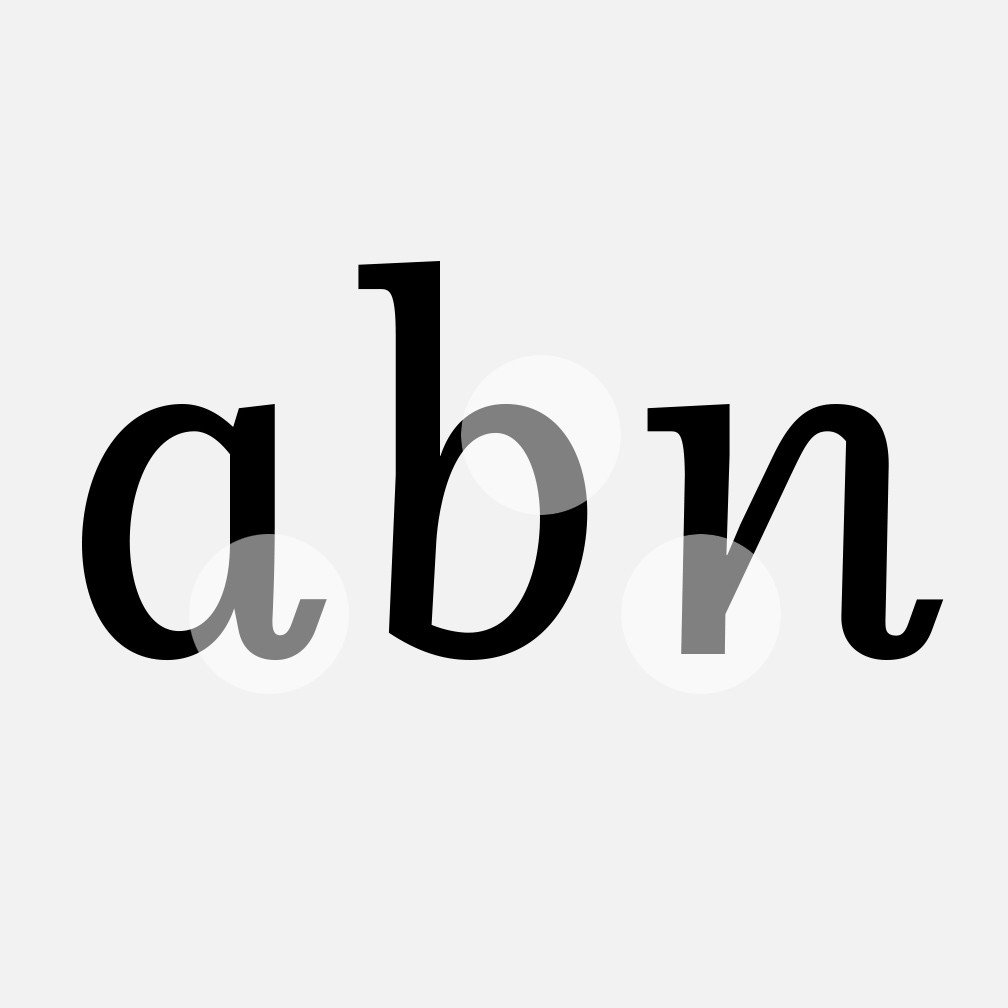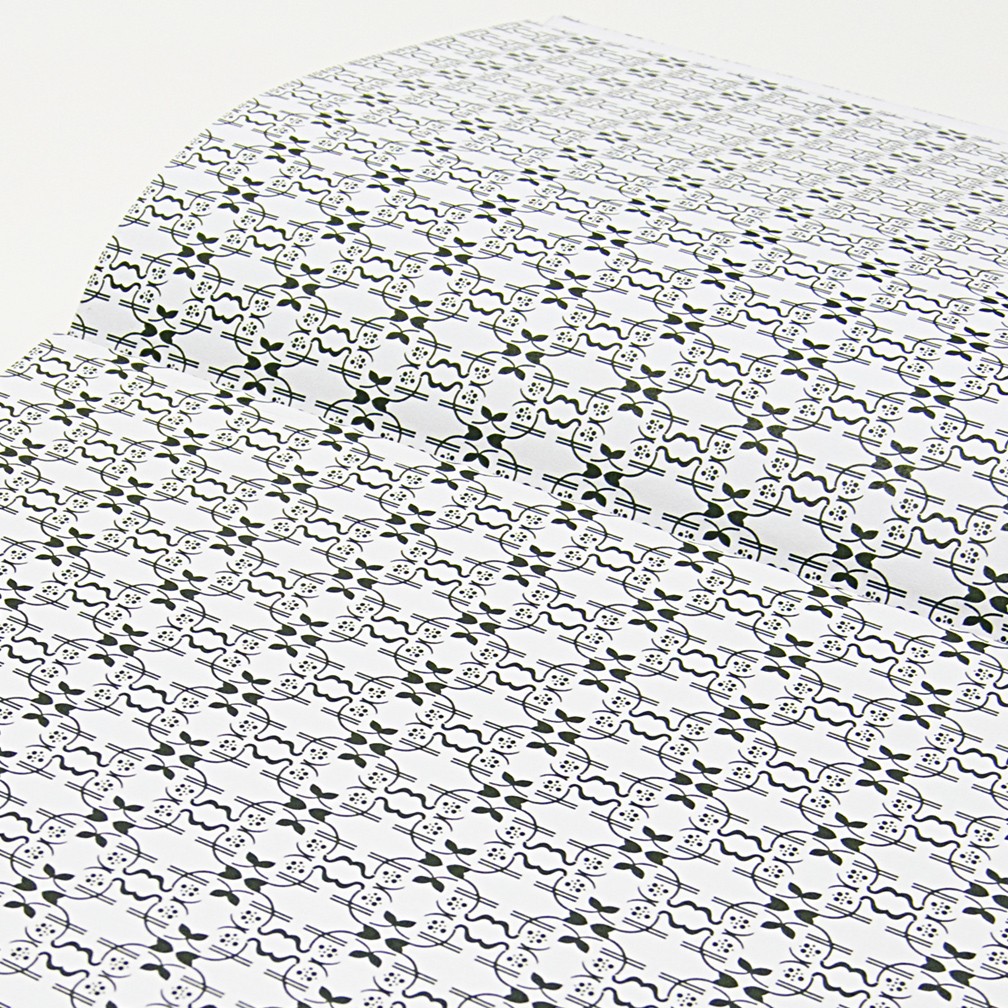
Odile
Odile Deco Initials
Odile Initials
Odile Upright Italic
Odile Ornaments
Sibylle Hagmann
Odile is a text typeface with bracketed head and bracket-free bottom lower case serifs, a quality that counters rigidness most traditional slab serif typefaces possess. This contemporary design draws inspiration from an experimental typeface named Charter originally designed by the American book and type designer William Addison Dwiggins. Dwiggins contemplated Charter as the italic companion to Arcadia, Experimental No. 221. The Charter project progressed sporadic, stalled during the Second World War, and came to a halt in 1955. Charter remained incomplete and was never commercially released. Assessing Charter’s whimsical design, its fragments were rethought and developed into a comprehensive text family. Odile Upright Italic reveals visible similarities shared by Dwiggins’ Charter and defines the design approach for the family. The steep calligraphic upstroke and low junctions off the stem as in the upright italic ‘h’ or ‘m’, are gradually lessened in the italic and moved up for the roman weights. The six optically balanced weights range from the delicate Light to stark Black, accompanied by display variants with flowing flair and ardent ornaments. Two sorts of Initials, one amplified with interweaving swashes, the other more restrained, both are clearly derived from the Upright Italic. This mid-contrast serif offers a wide range of tools for text and display typography with a palette of strict to playful. The gracefully seriffed type harmonizes perfectly with Elido, Odile’s sans serif companion.